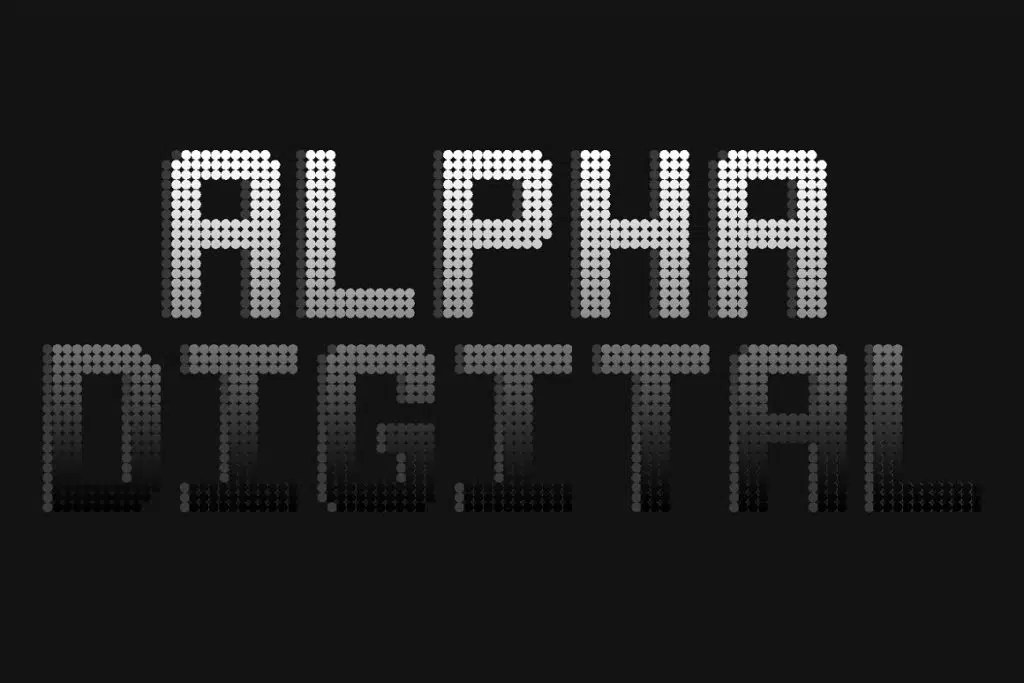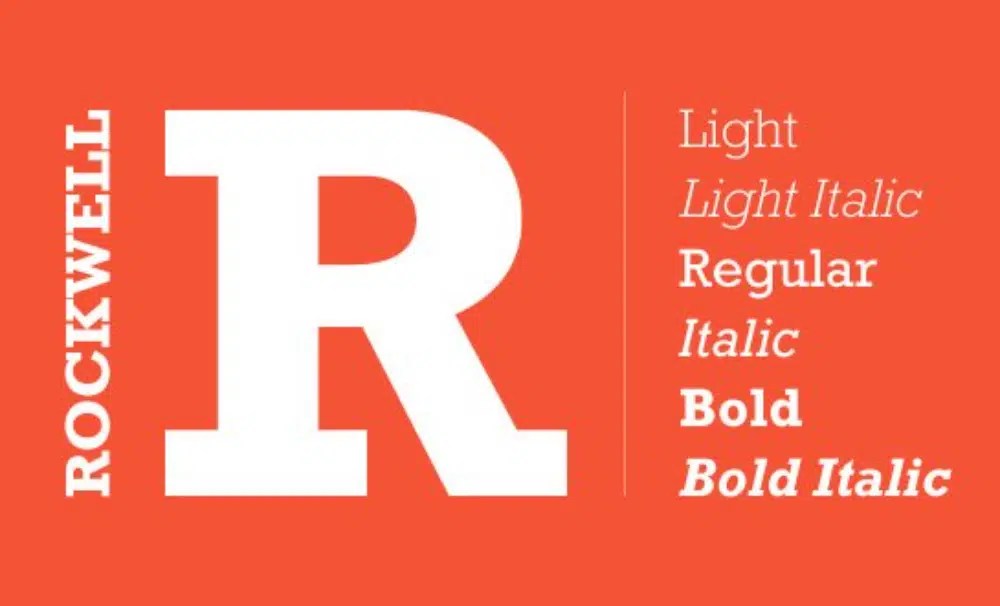
Best Font For Digital . Choosing the right font is vital for great web design. Top legible fonts for website text content include sans serif fonts like roboto, open sans, and arial. These 11 popular fonts are loved by designers because they balance visual impact and versatility. If you're hunting for a good font for your website, look no further. These fonts are designed for. Here are the 15 best google fonts by the numbers. Unleash your creativity on the.
Top legible fonts for website text content include sans serif fonts like roboto, open sans, and arial. These 11 popular fonts are loved by designers because they balance visual impact and versatility. Unleash your creativity on the. These fonts are designed for. If you're hunting for a good font for your website, look no further. Choosing the right font is vital for great web design. Here are the 15 best google fonts by the numbers.